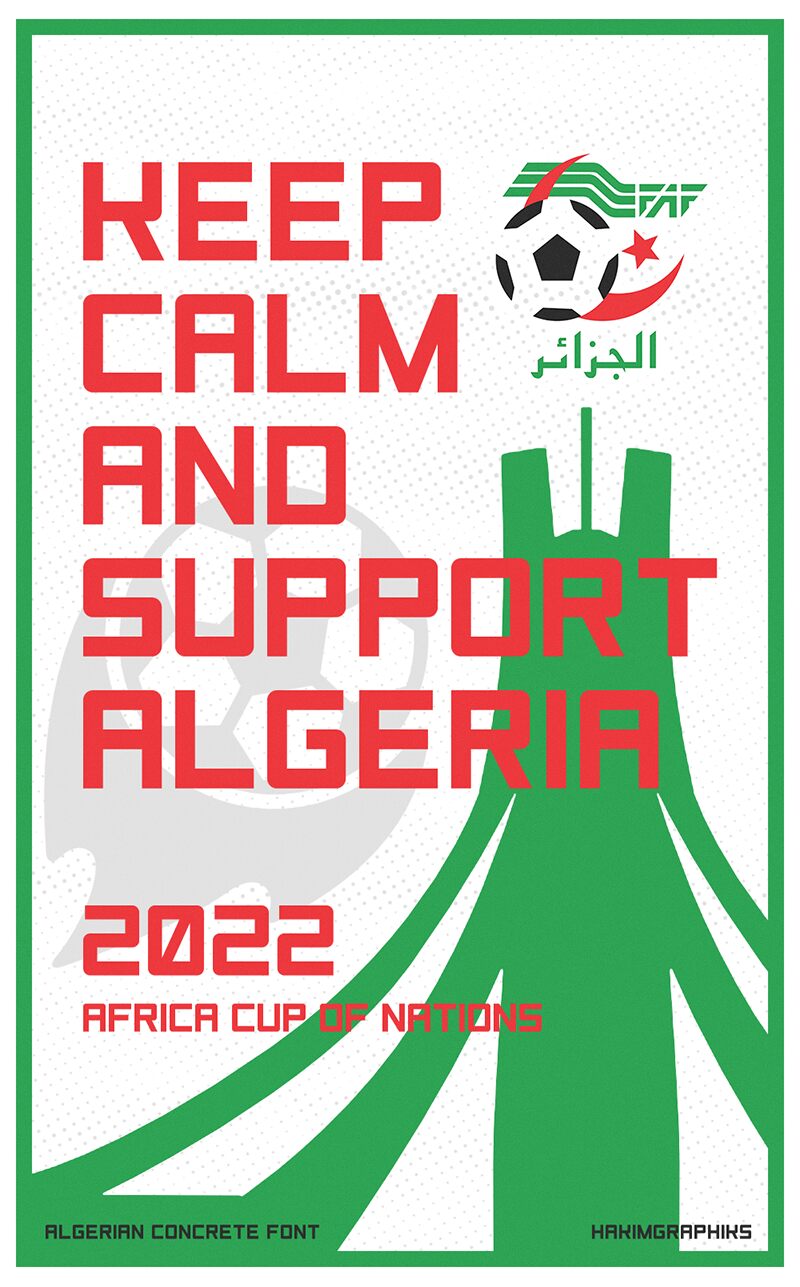
Algerian Concrete All Caps font, from the Algerian Concrete family by Hakim Graphiks, is a dynamic sans serif typeface that commands attention. Its bold architecture and geometric lines create a striking visual impact, making it perfect for headlines and branding. The sturdy construction evokes a sense of strength and modernity, while its all-caps design ensures clarity and prominence.
Ideal for designers seeking a contemporary aesthetic, this free font provides versatility in various projects such as posters, advertisements, and digital media. The Algerian Concrete All Caps font is available for download, offering both style and substance to elevate any design with its distinct presence.